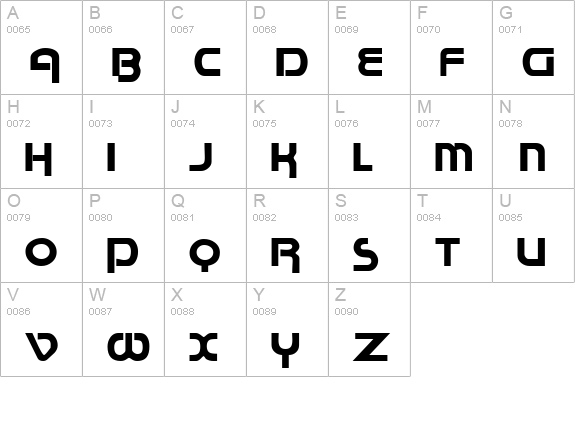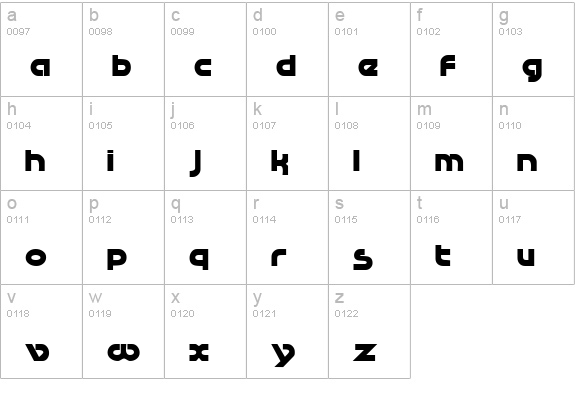
RaceTracSSK Bold Font Details
RaceTracSSK Bold is a strong, high-contrast variant in the RaceTracSSK typeface family \xE2\x80\x94 well suited to headlines, attention-grabbing titles, and strong calls-to-action.
RaceTracSSK Bold font is a captivating and bold typeface that will make your designs stand out from the crowd. With its strong and confident letterforms, this font exudes a sense of power and elegance. The thick strokes and sharp angles of RaceTracSSK Bold create a visually striking impact, making it perfect for headlines, signage, logos, and any design that needs to make a bold statement. But what sets RaceTracSSK Bold font apart is not only its aesthetic appeal, but also its availability for free download. Yes, you read that right - RaceTracSSK Bold font is freely available to download at FontsMarket.com. This means that you can enhance your designs with this impressive font without any cost. Whether you are a professional designer looking to add a touch of boldness to your projects or a casual user in need of a striking font for personal use, RaceTracSSK Bold font is the perfect choice. Its versatility and boldness make it suitable for a wide range of applications, from print materials to digital designs. So go ahead and make a statement with RaceTracSSK Bold font. Download it for free at FontsMarket.com and let your creativity soar. With its powerful presence and eye-catching design, RaceTracSSK Bold font is sure to leave a lasting impression on your audience.